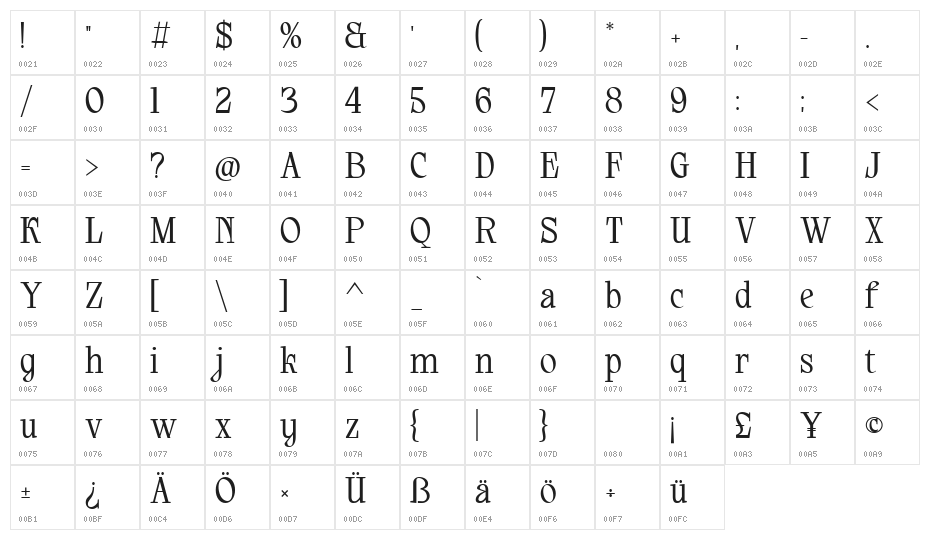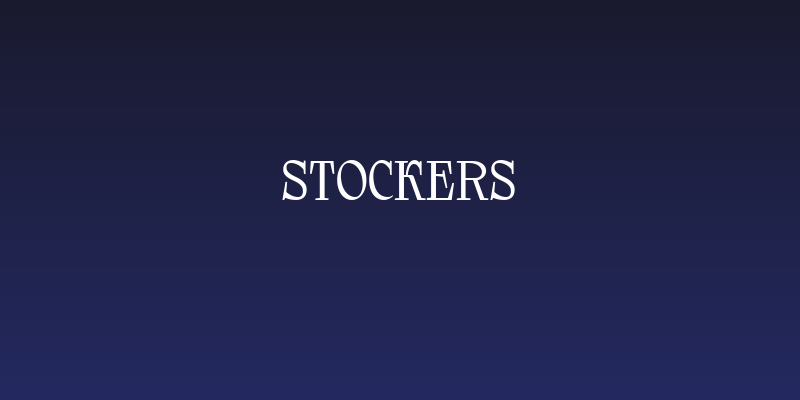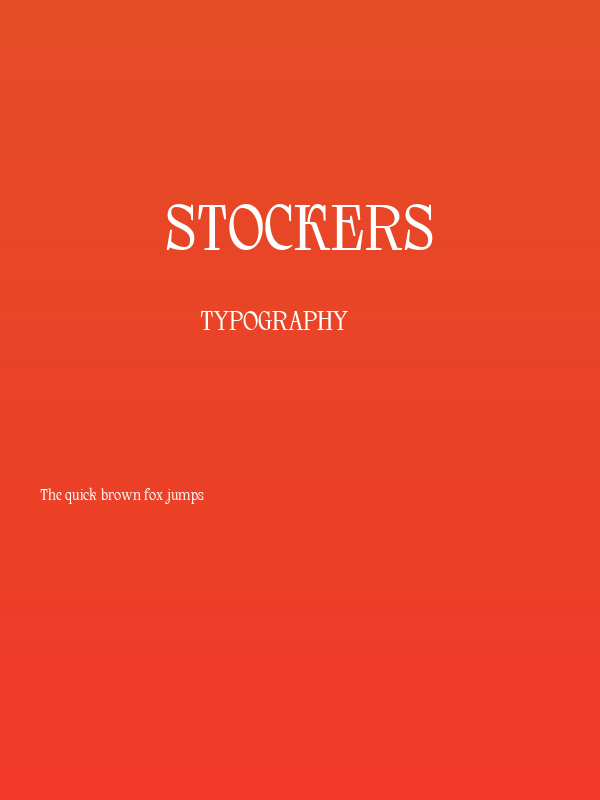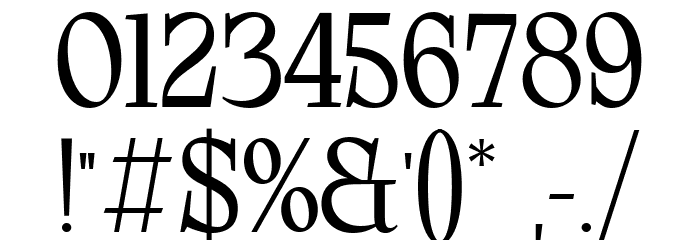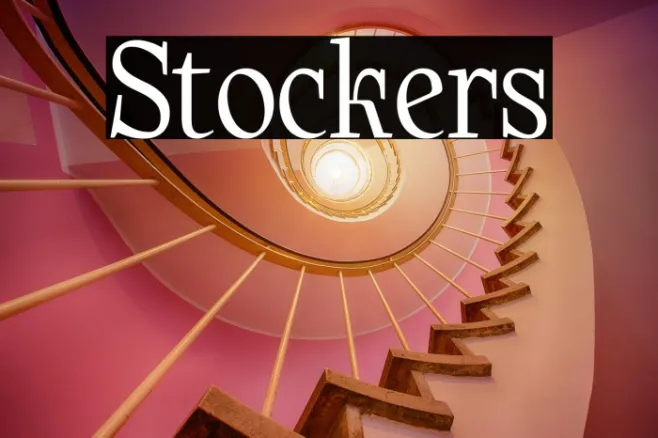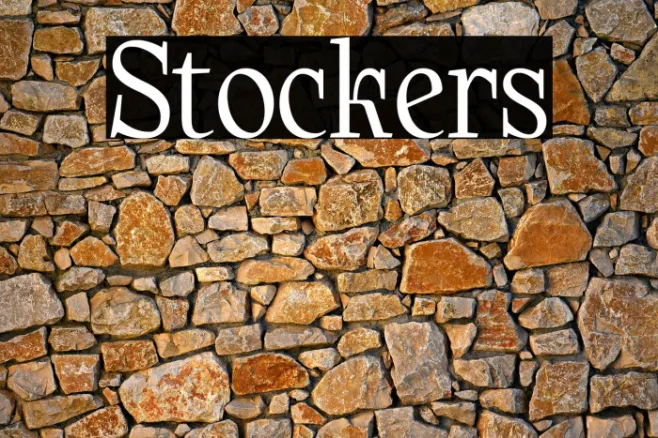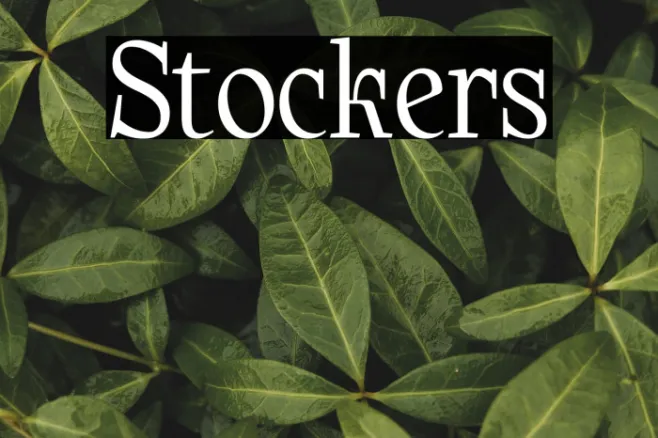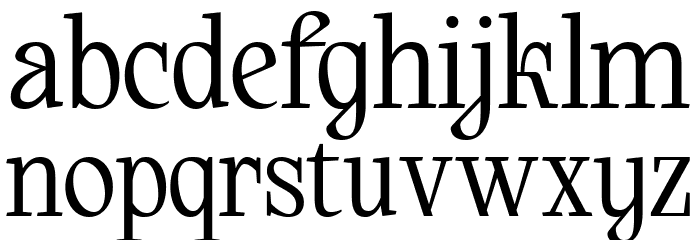
Stockers Font
Stockers Description
This font exhibits a classic serif style with a modern twist. The uppercase letters are bold and commanding, featuring sharp serifs that add a touch of elegance. The lowercase letters maintain a consistent style, with smooth curves and a slightly condensed form that enhances readability. The numerals are well-proportioned, aligning seamlessly with the overall design. Special characters are thoughtfully crafted, ensuring versatility across various applications. The font's balance between traditional serif elements and contemporary design makes it suitable for a wide range of uses.
| Proposed Projects | Ideal for editorial design, book covers, branding, and sophisticated advertising campaigns. |